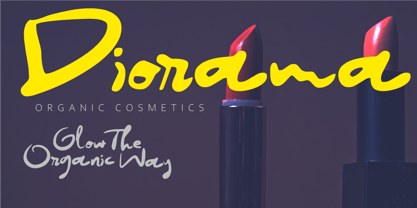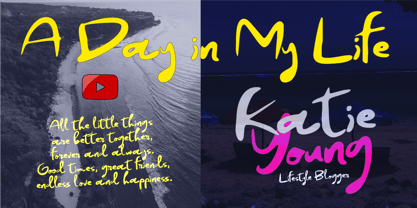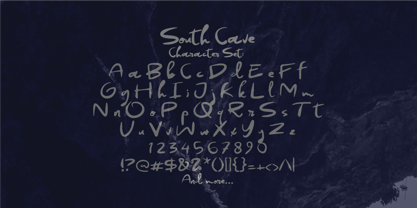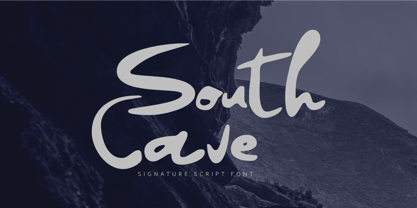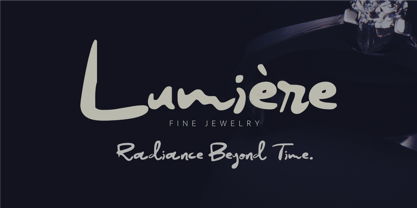
South Cave
by Olivetype
The South Cave Font Family was designed by Nurul Hidayani and published by Olivetype. South Cave contains 1 styles.
South Cave is a sophisticated signature script font that blends natural handwriting with refined elegance, creating a timeless and authentic look for modern branding. Designed with smooth flowing strokes, graceful curves, and realistic handwritten details, this font captures the beauty of a genuine signature while maintaining excellent readability. Its stylish and versatile character makes it perfect for creating memorable logos, luxury branding, fashion labels, cosmetic packaging, wedding stationery, photography watermarks, social media content, product packaging, and premium business identities.
Whether you're building a personal brand, designing a boutique logo, or adding a handcrafted touch to creative projects, South Cave delivers effortless sophistication and charm. Its elegant script style brings warmth, personality, and exclusivity to every design, making it an excellent choice for businesses and creators who want a polished yet personal aesthetic.
Designers: Nurul Hidayani
Foundry: Olivetype